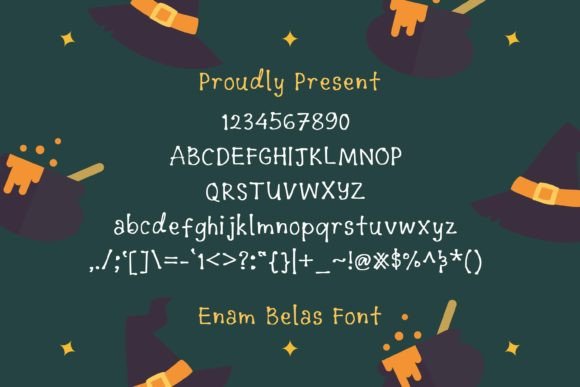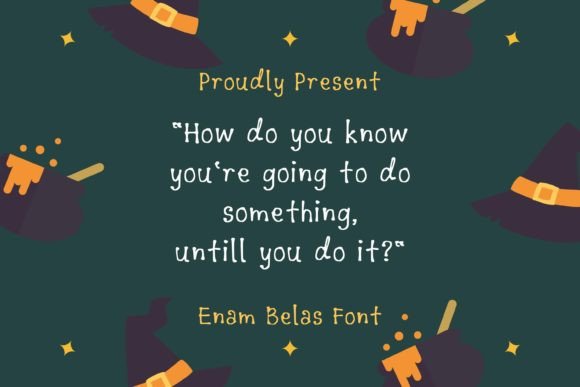
Discover the Charm of Enam Belas Font: A Unique and Cute Addition to Your Designs
Are you tired of using the same old fonts in your designs? Look no further! Enam Belas Font is a regular font that is quite unique and cute, perfect for adding a touch of personality to your creations. In this article, we’ll dive into the world of Enam Belas Font and explore its features, benefits, and uses.
What is Enam Belas Font?
Enam Belas Font is a distinctive and charming font that has gained popularity among designers and crafters. Its unique and cute style makes it perfect for a wide range of design projects, from digital art to handmade crafts. Whether you’re creating a logo, a poster, or a social media graphic, Enam Belas Font is sure to add a touch of whimsy and personality to your design.
Features of Enam Belas Font
So, what makes Enam Belas Font so special? Here are some of its key features:
- Unique and Cute Style: Enam Belas Font has a one-of-a-kind design that’s both playful and charming.
- Regular Font: Enam Belas Font is a regular font, making it easy to read and use in a variety of design projects.
- Versatile: Enam Belas Font can be used for both digital and print projects, making it a great addition to your design toolkit.
Benefits of Using Enam Belas Font
So, why should you choose Enam Belas Font for your designs? Here are some benefits of using this unique font:
- Adds Personality to Your Designs: Enam Belas Font is sure to add a touch of whimsy and personality to your designs, setting them apart from the crowd.
- Easy to Read: Despite its unique style, Enam Belas Font is easy to read, making it perfect for use in a variety of design projects.
- Versatile: Enam Belas Font can be used for a wide range of design projects, from logos and posters to social media graphics and more.
Uses of Enam Belas Font
So, what can you use Enam Belas Font for? Here are some ideas to get you started:
- Digital Art: Enam Belas Font is perfect for use in digital art projects, such as illustrations, graphics, and more.
- Handmade Crafts: Enam Belas Font can be used for handmade crafts, such as scrapbooking, card making, and more.
- Branding and Marketing: Enam Belas Font can be used for branding and marketing projects, such as logos, posters, and social media graphics.
Tips for Using Enam Belas Font
Here are some tips for getting the most out of Enam Belas Font:
- Experiment with Different Sizes: Enam Belas Font looks great in a variety of sizes, so don’t be afraid to experiment and find the perfect size for your design.
- Pair with Other Fonts: Enam Belas Font pairs well with other fonts, so try combining it with a bold font for a striking contrast.
- Use for Headlines and Titles: Enam Belas Font is perfect for use in headlines and titles, adding a touch of personality and whimsy to your design.
In conclusion, Enam Belas Font is a unique and cute font that’s perfect for adding a touch of personality to your designs. With its versatile style and easy-to-read design, Enam Belas Font is sure to become a favorite in your design toolkit. So why not give it a try and see the difference it can make in your designs?